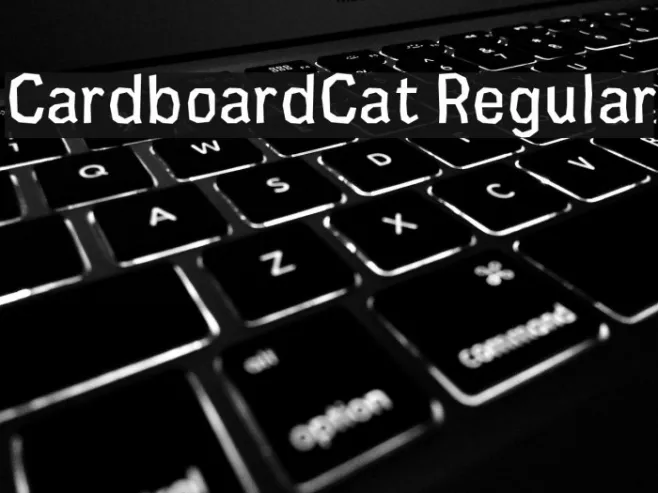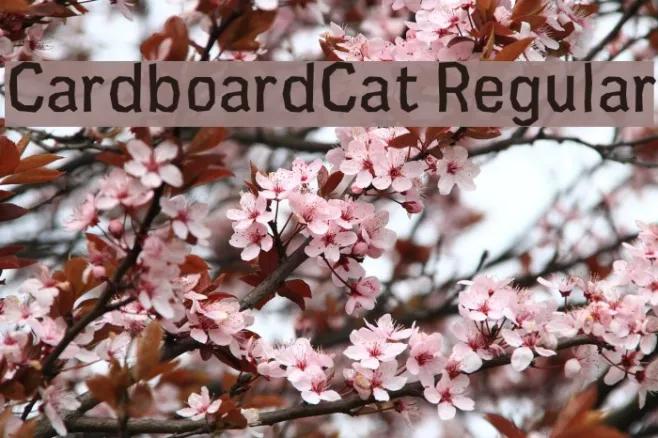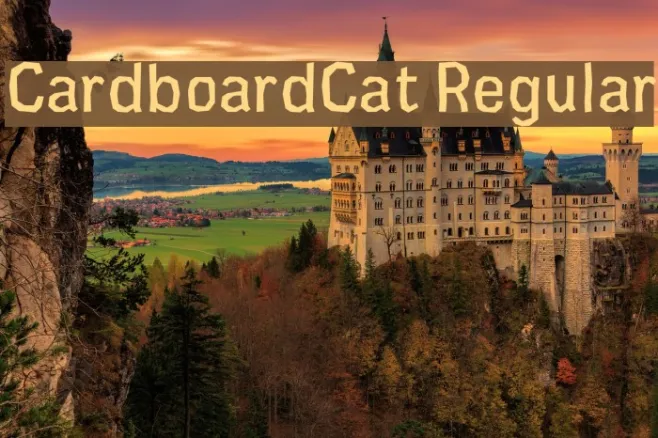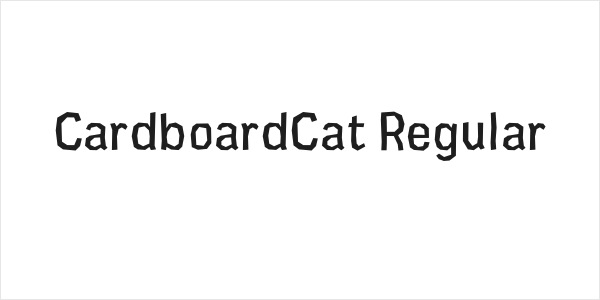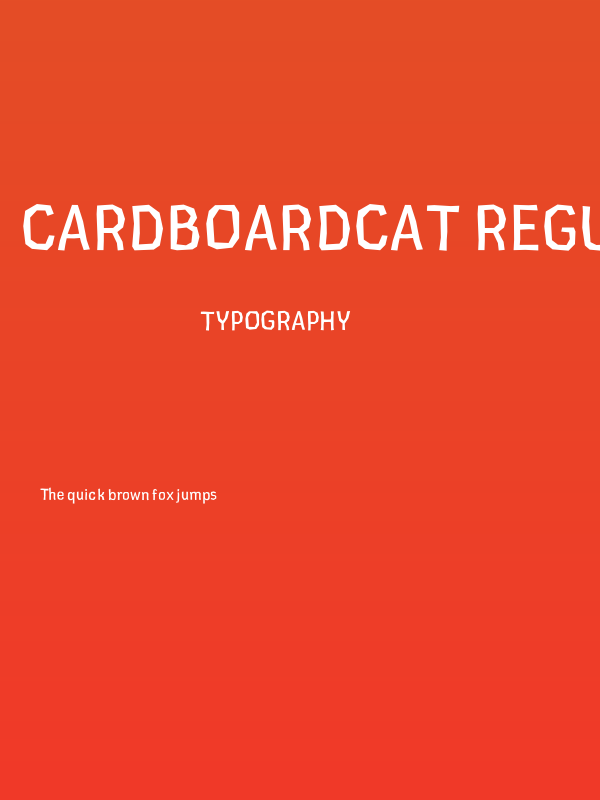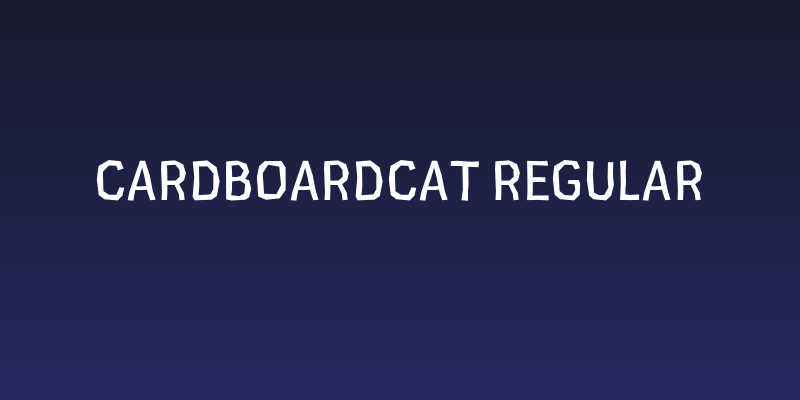
CardboardCat Regular Font
CardboardCat Regular Description
This font features a unique, hand-crafted appearance with irregular edges and a playful, artistic style. The characters are bold and slightly uneven, giving them a distinctive, organic feel reminiscent of cut-out letters or hand-drawn designs. The uppercase and lowercase letters maintain a consistent style, with a slightly condensed width that adds to the quirky charm. The numerals and special characters follow the same design principles, ensuring a cohesive look across all text. This font is perfect for projects that require a touch of creativity and individuality.
| Proposed Projects | Ideal for creative projects, children's books, posters, and artistic branding. |